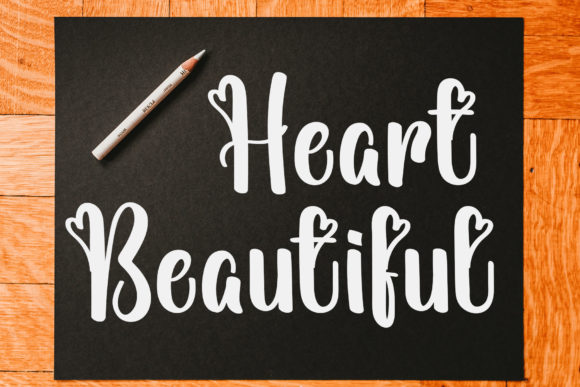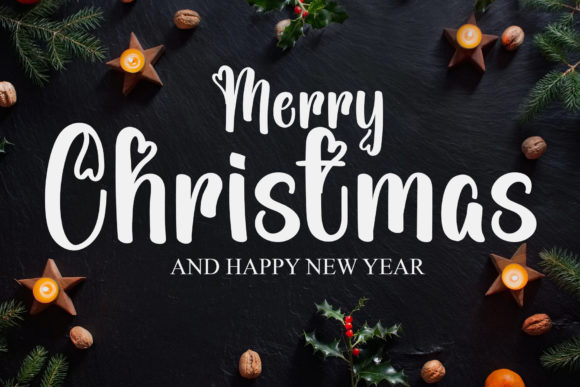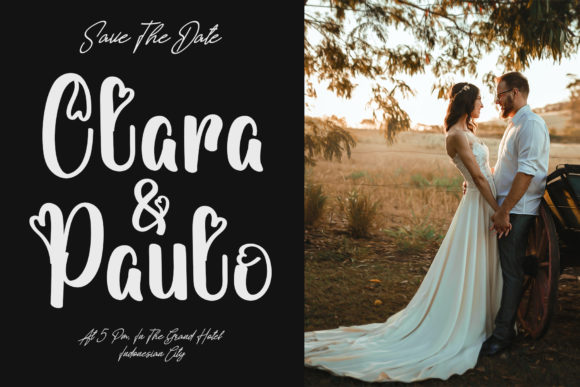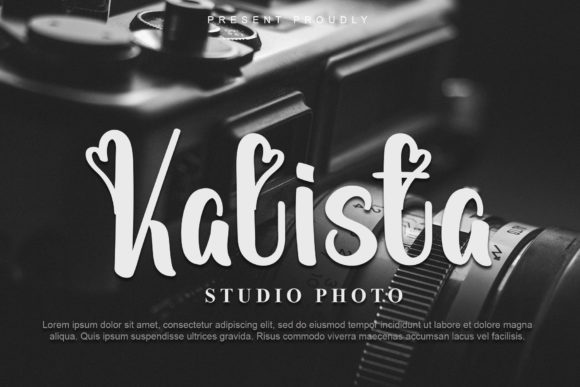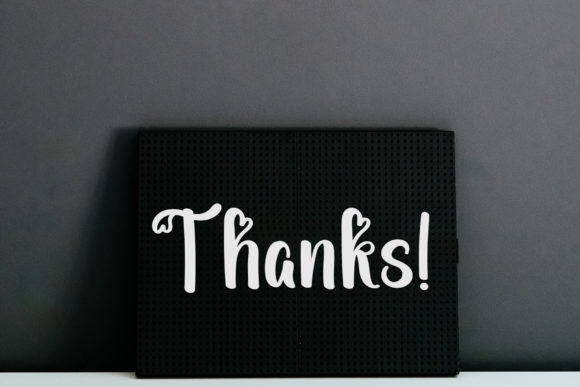
Introduction to Rinse Font Font
Fonts play a crucial role in design, and the Rinse Font font is a typeface that brings both character and versatility to any project. Whether you’re working on a branding project, a website, or a print design, the Rinse Font font offers a unique style that can elevate your work.
Rinse is a brushed, delicate and stylish handwritten font.
This adaptable font will look great on a variety of design ideas It will add a fun and adaptable touch to each of your projects.
Key Features of Rinse Font Font
Why Choose Rinse Font Font?
The Rinse Font font is more than just a typeface – it’s a design tool that helps you communicate your message with style and clarity. Its unique character set and versatile design make it suitable for a wide range of applications, from elegant invitations to bold headlines.
With its carefully crafted letterforms and balanced proportions, the Rinse Font font ensures readability and visual appeal across all mediums.
What makes Rinse Font font special?
The Rinse Font font stands out with its unique design, exceptional readability, and versatility across various design applications.